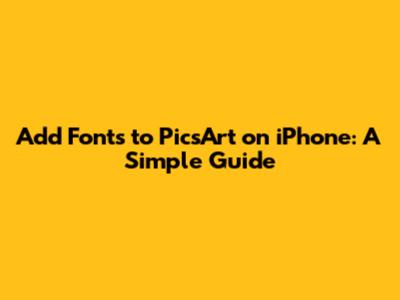
Adding custom fonts to PicsArt on your iPhone can seriously level up your photo editing game. Fonts can transform a simple image into a captivating visual story, allowing you to express your creativity in unique ways. Whether you're designing social media posts, creating personalized memes, or just adding some flair to your photos, having a variety of fonts at your fingertips is essential. This guide will walk you through the process step-by-step, ensuring you can easily add and use your favorite fonts in PicsArt on your iPhone. So, let's dive in and get those creative juices flowing!
Why Add Custom Fonts to PicsArt?
First off, let's talk about why adding custom fonts to PicsArt is such a game-changer. The default fonts in most apps, including PicsArt, are often limited and can become repetitive. By adding your own fonts, you open up a world of possibilities. You can match the font to the specific mood or theme of your project, making your designs more cohesive and professional.
Expressing Your Unique Style: Fonts are a powerful tool for expressing your personal style. Whether you prefer elegant scripts, bold sans-serifs, or quirky hand-drawn styles, the right font can make your work stand out. Think of fonts as the voice of your images – they communicate tone, personality, and emotion.
Enhancing Visual Appeal: Good typography can significantly enhance the visual appeal of your designs. A well-chosen font can draw the viewer's eye, create visual hierarchy, and make your text more readable. It's all about finding the perfect balance between aesthetics and functionality. Using a variety of fonts, you can create visually stunning graphics that capture attention and leave a lasting impression.
Branding and Consistency: If you're using PicsArt for branding purposes, custom fonts can help you maintain a consistent visual identity. By using the same fonts across all your designs, you create a recognizable brand that customers can easily identify. This consistency is crucial for building brand awareness and establishing a professional image. Fonts play a significant role in shaping your brand's personality and conveying its values.
Creative Freedom: Adding custom fonts gives you the freedom to experiment and explore different design styles. You're no longer limited by the app's default options. Instead, you can download and install fonts that perfectly match your creative vision. This freedom allows you to push the boundaries of your designs and create truly unique and innovative work. From vintage-inspired typography to modern and minimalist designs, the possibilities are endless when you have a wide range of fonts at your disposal.
Finding and Downloading Fonts
Alright, let's get practical. Finding and downloading fonts is the first step to expanding your PicsArt typography options. There are tons of websites out there offering free and premium fonts. Here are a few of my go-to resources:
DaFont: DaFont is a classic choice for free fonts. The site is easy to navigate, and you can find fonts in various categories, from basic sans-serifs to more decorative options. Just be sure to check the license for each font, as some are only free for personal use.
Google Fonts: Google Fonts is another great resource, offering a wide selection of open-source fonts that are free for both personal and commercial use. The fonts are high-quality and easy to download. Plus, they integrate seamlessly with many design tools, making them a versatile option for any project. The advantage of Google Fonts is that they are web-safe, meaning they'll display correctly on any device.